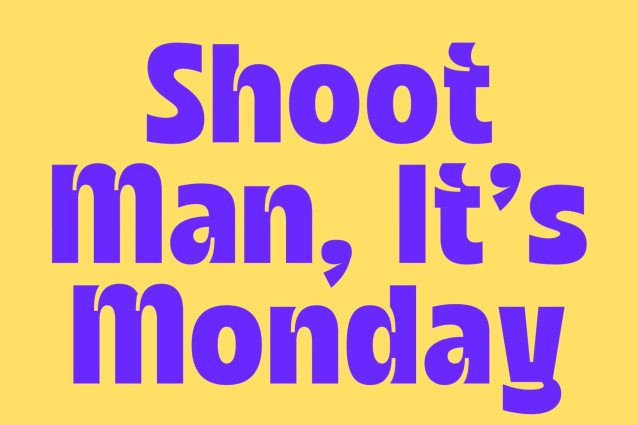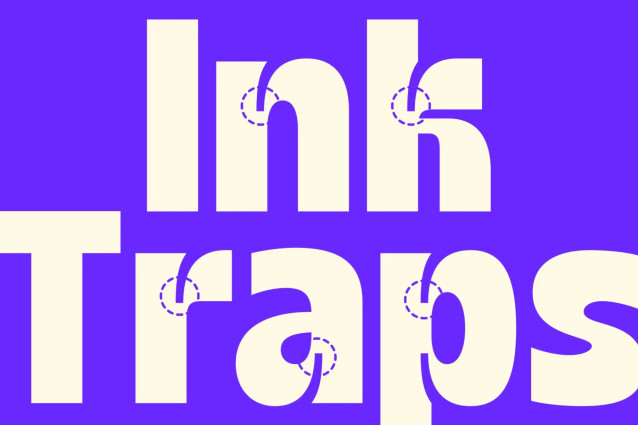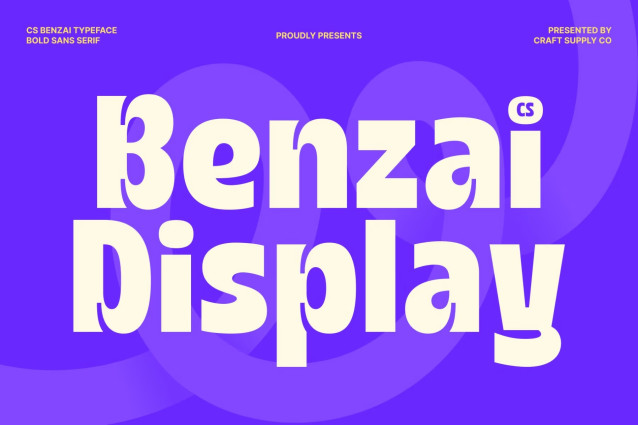
CS Benzai – Inktrap Font
CS Benzai – Bold Sans Serif Font: Where Modern Strength Meets Playful Inktrap Character
Strong Modern Forms with Expressive Personality
This is a bold sans serif display font designed to make a lasting impression through its strong, confident letterforms and contemporary aesthetic. Its clean structure and bold proportions create excellent visibility and impact, making it ideal for display applications that demand attention. The font balances modern simplicity with expressive details, resulting in a style that feels both professional and full of character.
Playful Inktrap Details with Unique Charm
This font transforms traditional typographic features into eye-catching design elements. These carefully crafted cuts and refinements add personality, visual interest, and subtle complexity to each letterform. The playful inktraps introduce a fresh and dynamic character while maintaining the font’s bold readability and polished appearance.
Contemporary Design with Creative Energy
This font delivers a typographic identity that feels energetic, memorable, and highly versatile. Its strong forms combined with unique details create a perfect balance between functionality and creativity, making it suitable for projects that seek both clarity and individuality.